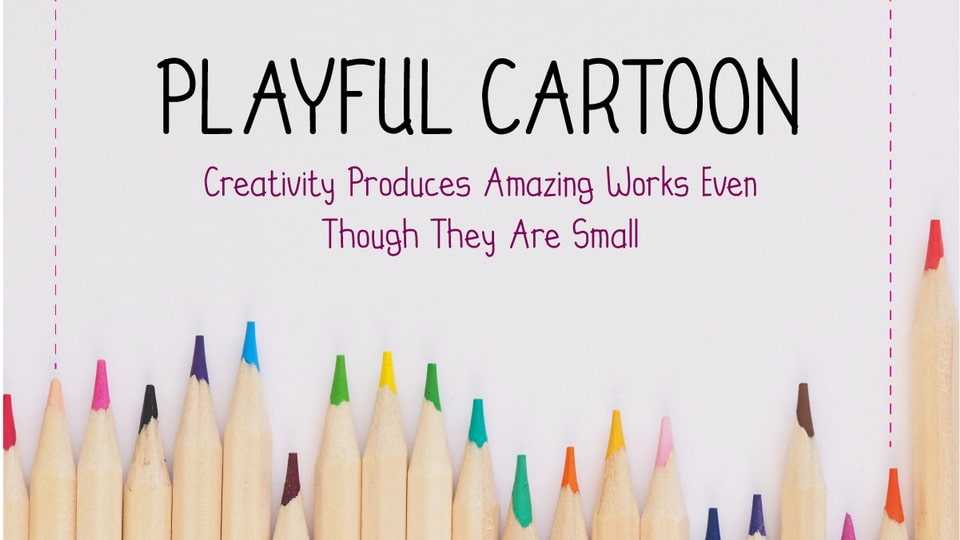
Download Playful Cartoon font, a hand drawn typeface designed in an enjoyable handwritten sans serif font style. Let’s try it for your projects, such as presentations, back-to-school, party decorations, posters, blogs, and social media posts.